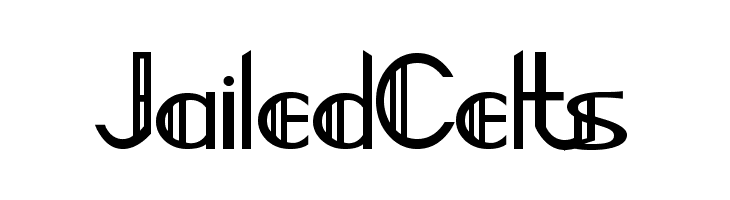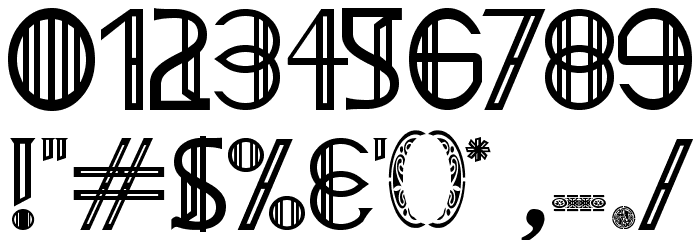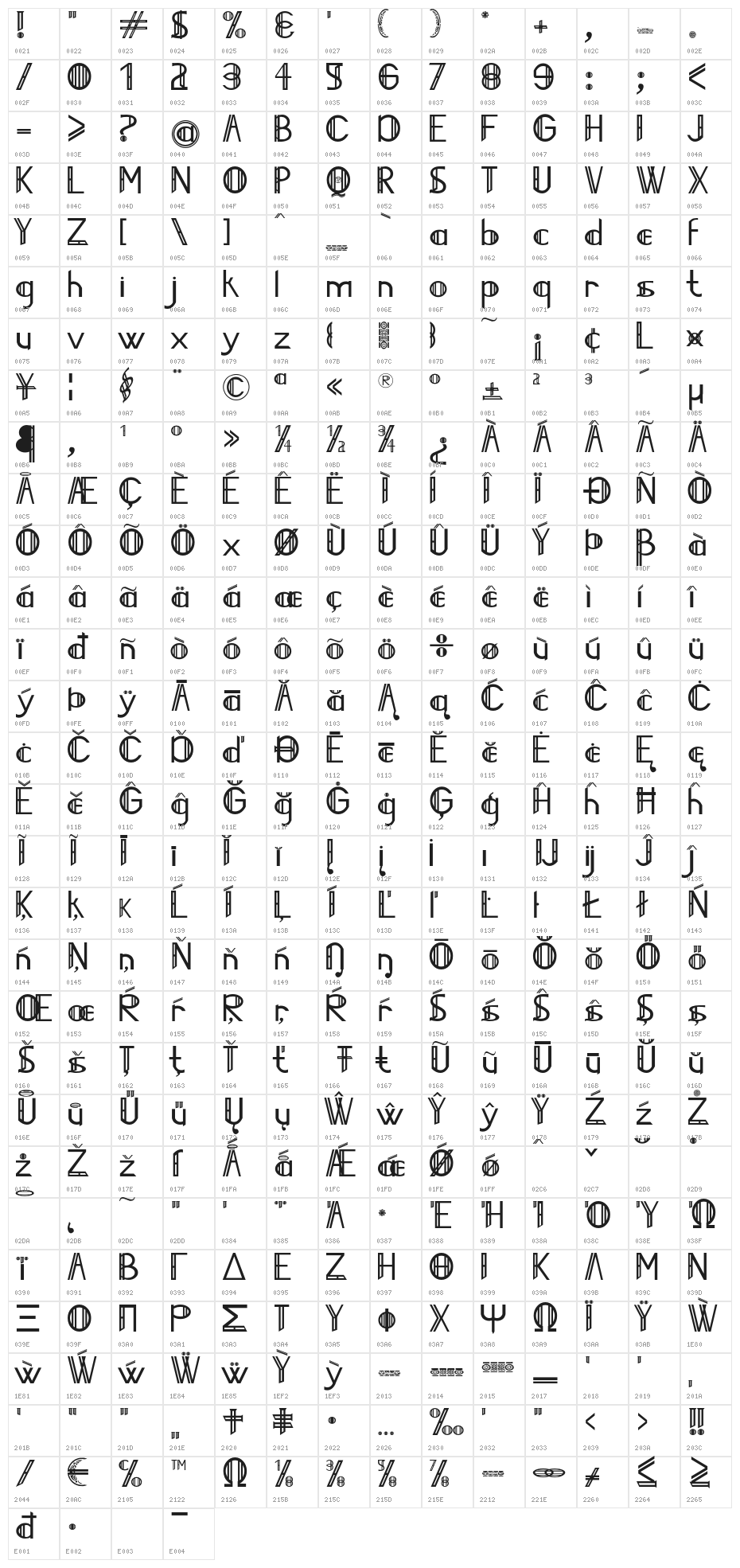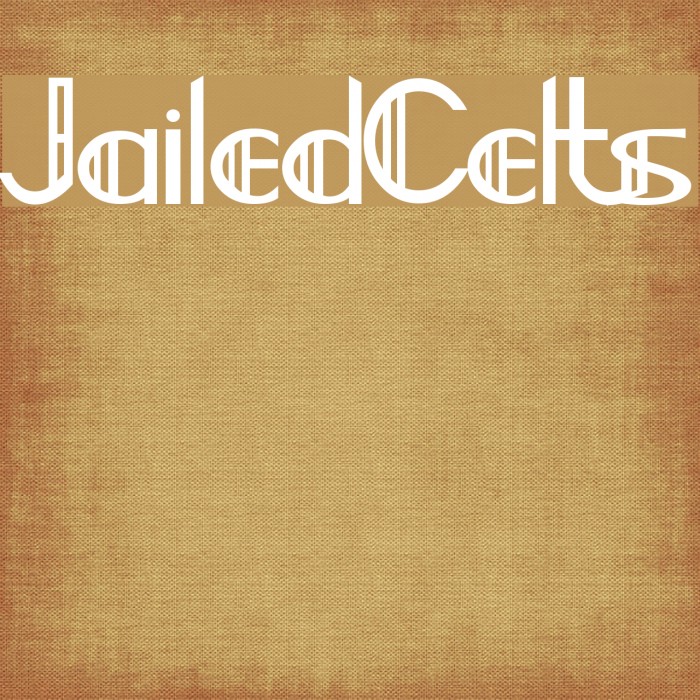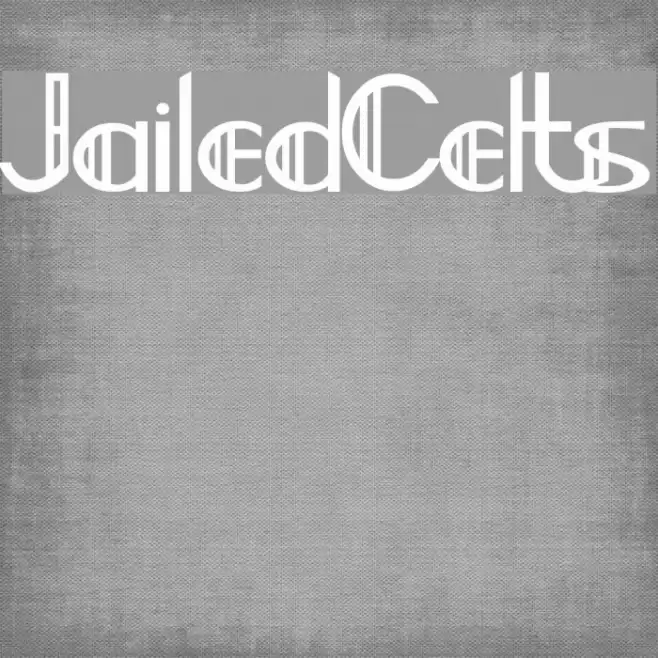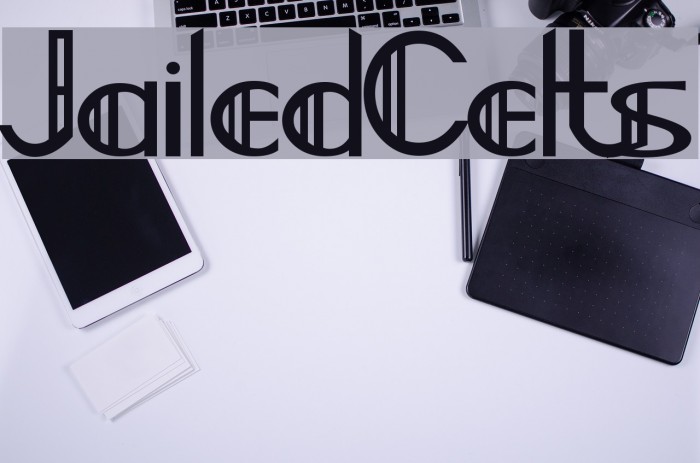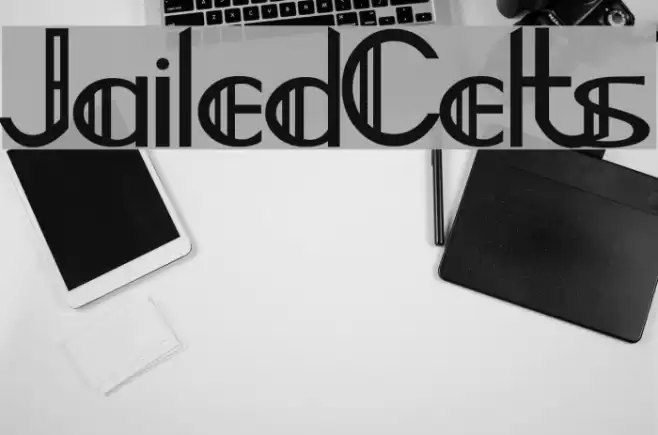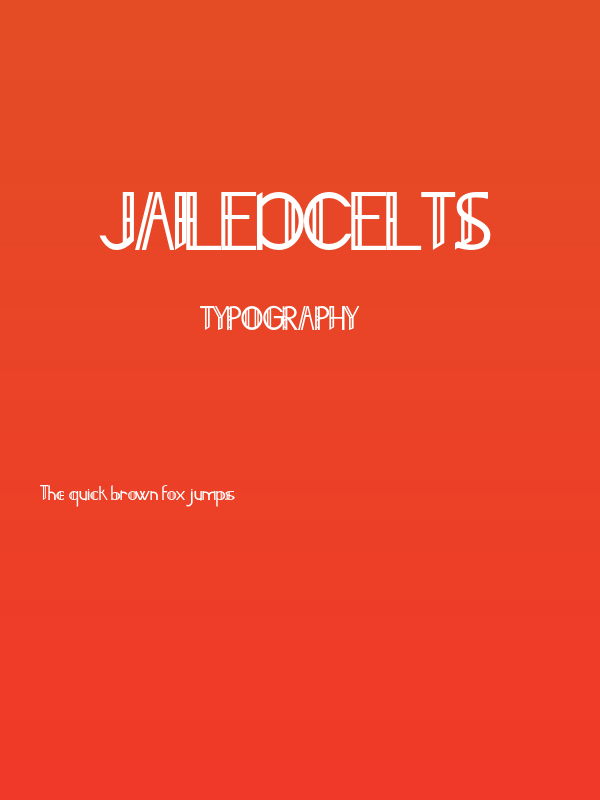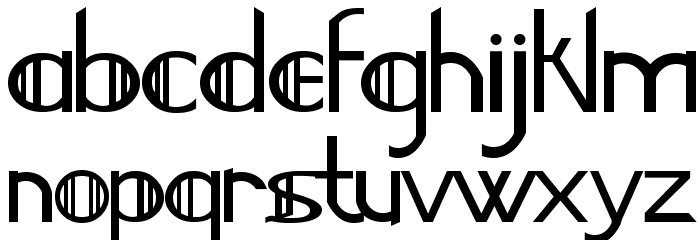
JailedCelts Font
JailedCelts Description
This font features a unique and bold design with a strong geometric influence. The uppercase letters are characterized by vertical lines that create a 'jailed' effect, giving the font a distinct and modern appearance. The lowercase letters maintain a similar geometric style but with more fluidity and less rigidity. Numbers and special characters follow the same design principles, ensuring consistency throughout the typeface. The overall aesthetic is striking and eye-catching, making it suitable for projects that require a strong visual impact.
| Proposed Projects | Ideal for branding, posters, album covers, and any design project that requires a bold and modern typeface. |